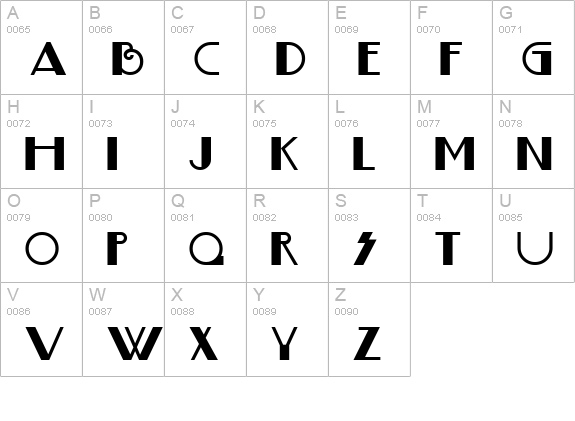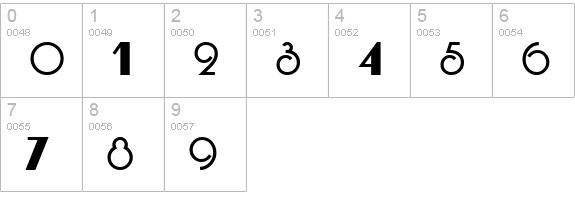
BoogieNightsNF Font Details
Introducing BoogieNightsNF, a playful and energetic display font that exudes retro charm and disco vibes. With its funky shapes and vibrant colors, BoogieNightsNF is perfect for adding a touch of fun to your designs. This free-spirited font is sure to make a statement and capture attention wherever it's used. BoogieNightsNF is freely available to download at FontsMarket.com, making it easily accessible for all your creative projects. Whether you're working on party invitations, posters, or branding materials, BoogieNightsNF will bring a groovy flair that sets your designs apart. Embrace the spirit of the '70s with BoogieNightsNF and let your creativity shine!